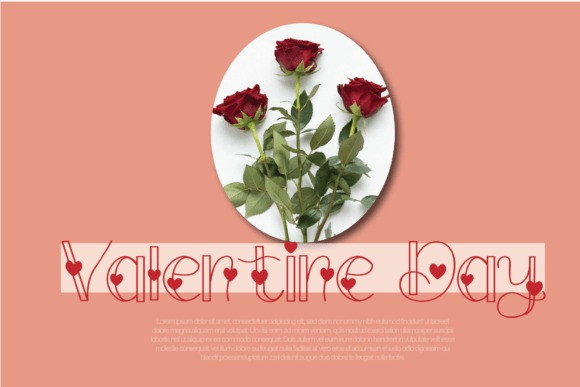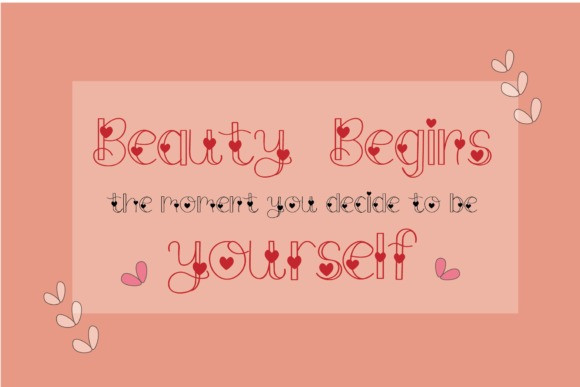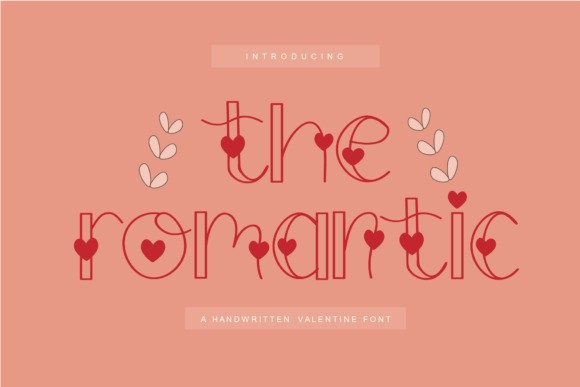
The Romantic Display Font
The Romantic Display Font is a unique font that is sweet and adorable. It has cute little hearts all over the letters which makes it perfect for all your romantic Valentine’s Day projects.